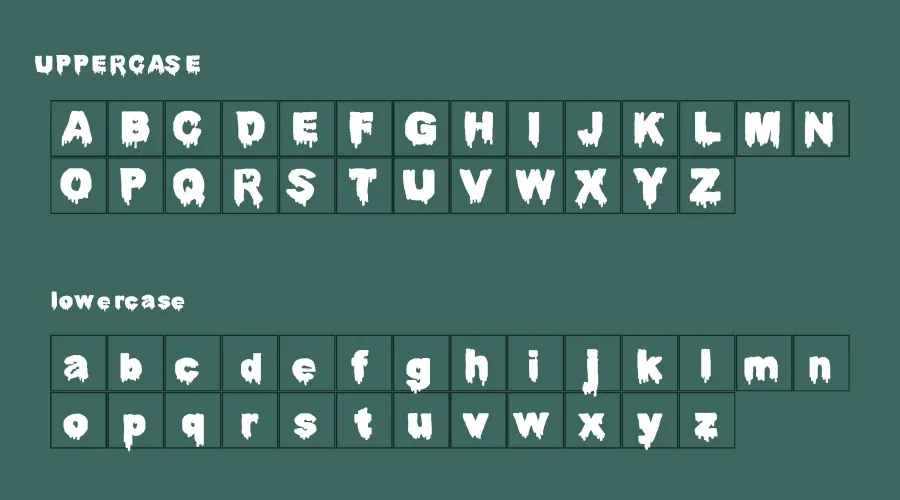
Darah by Thunderpanda Font
About Darah by Thunderpanda Font
In this post, we shall present to you a famous texture Darah by Thunderpanda Font. This font was developed by thunderpanda and is beneath the category of the fancy texture family. It is suitable for highlighting your project structures.
The subfamily of this amazing texture is regular that includes a unique type of styles and characters of alphabet sets such as small letters, capital letters, numerals, symbols, and many more. You should utilize it for adobe photoshops and CSS.
You can compare this font with Diablo Font and make stunning designs. The online generator tool of the darah by thunderpanda texture will help you to transform all your simple textures into modern and stylish shapes.